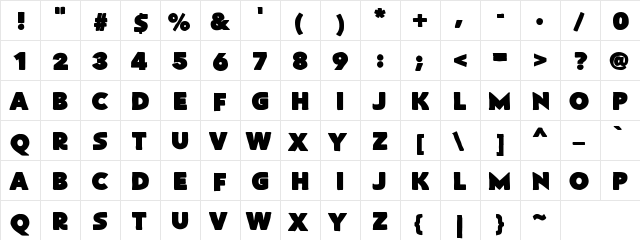
FlatBread Medium
Design Context for FlatBread Typeface
FlatBread takes a measured approach to typography — its balanced proportions and neutral character make it a reliable workhorse for both digital and print work.